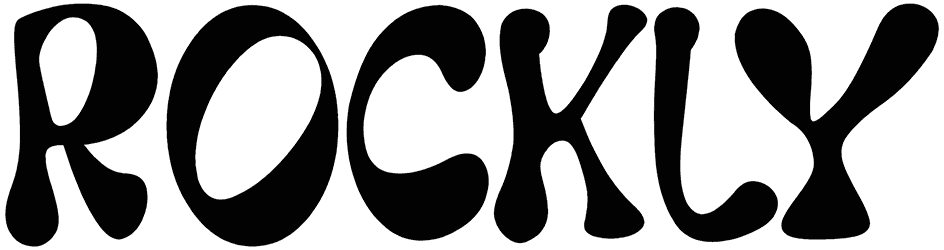
ResotYg Font
ResotYg is a sans-serif rounded font, with bold and black characters. The lettering of this font, from lower to capital, has the same height and this characteristic gives your headlines or logotypes, a dominant personality, and a significant amount of presence.
Decorative, unicase font ResotYg with many Contextual Alternate Glyphs.
TIP: Play with UPPeRCaSe and lowercAsE and have fun!!
Designed by: Gluk